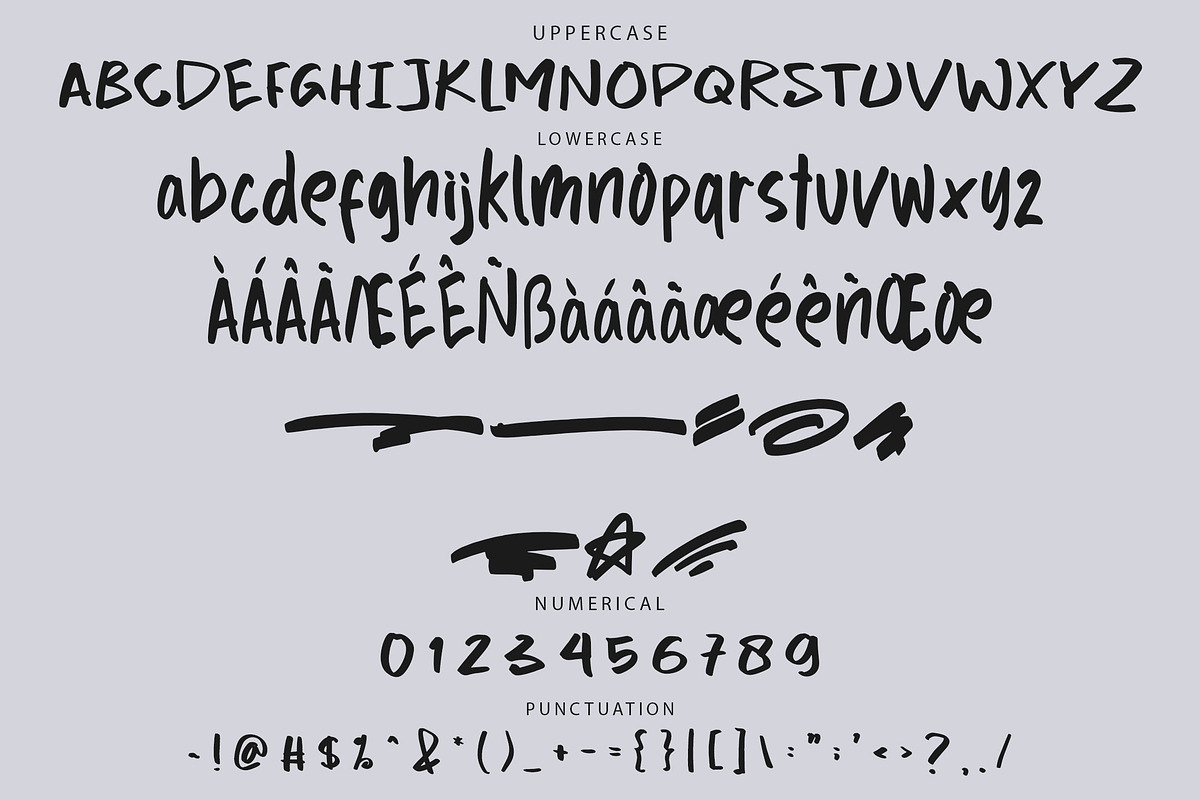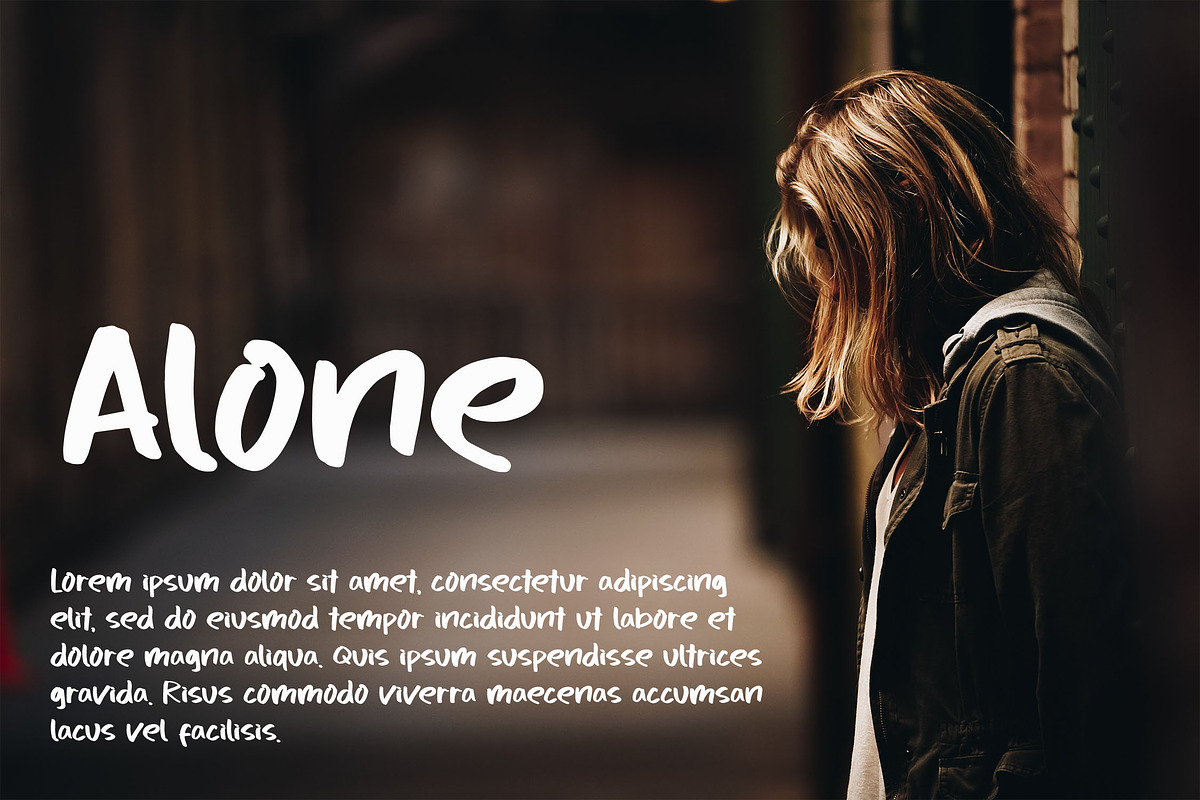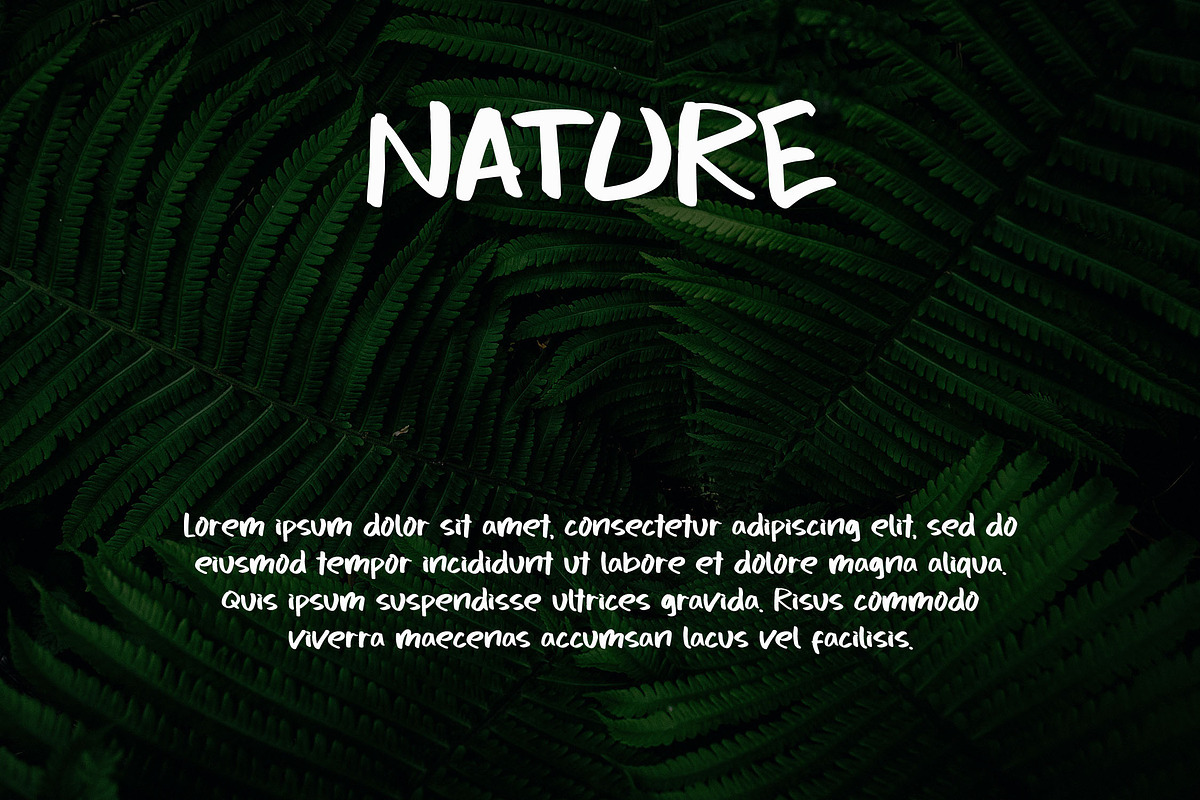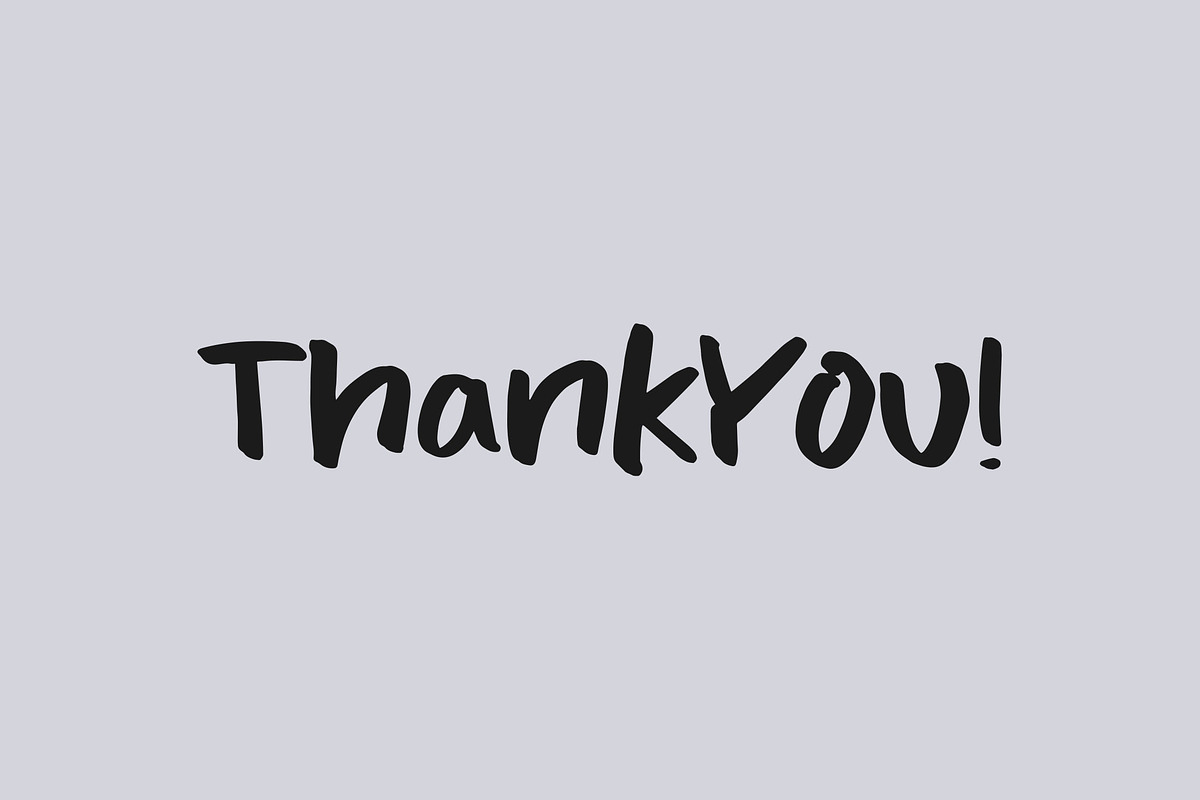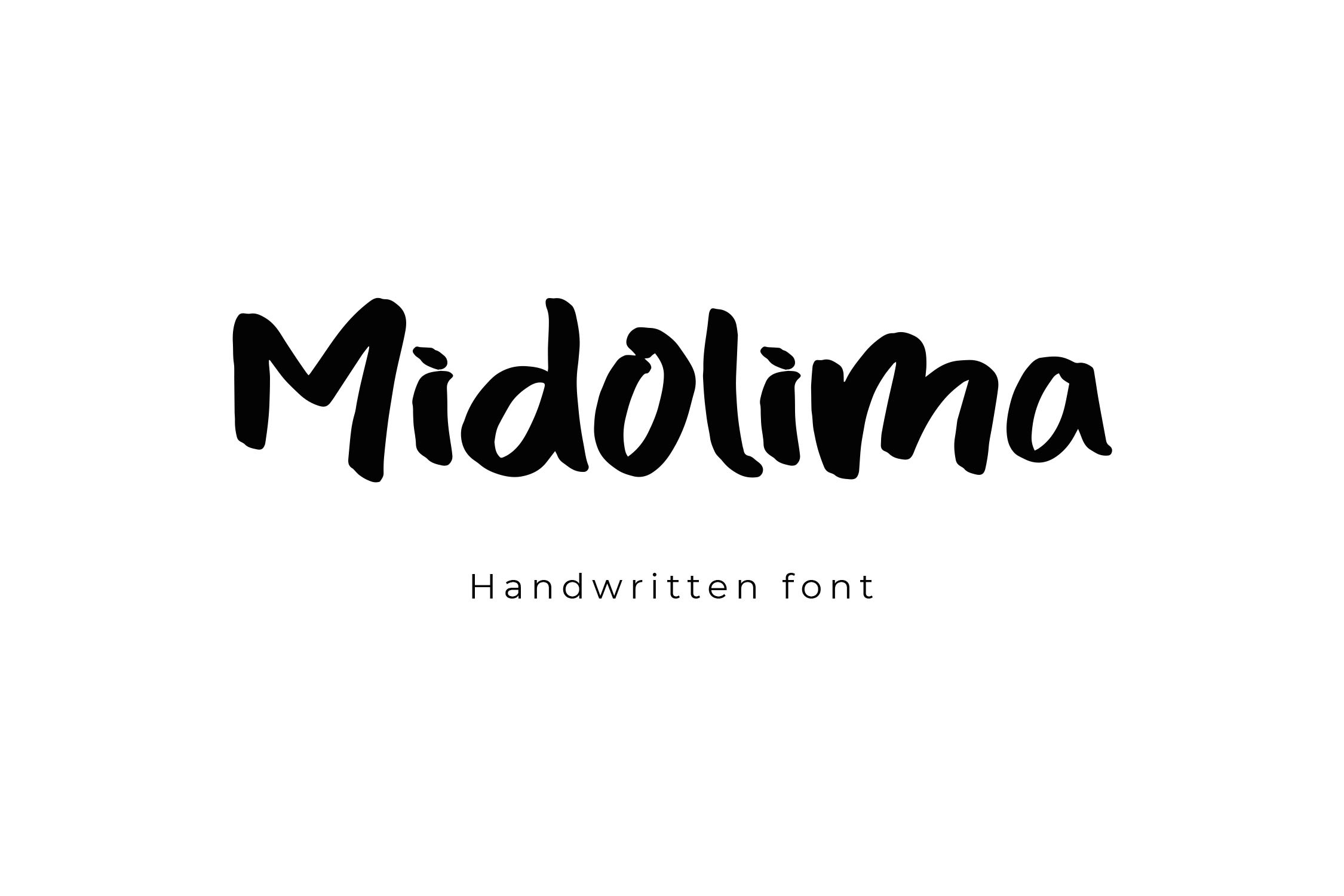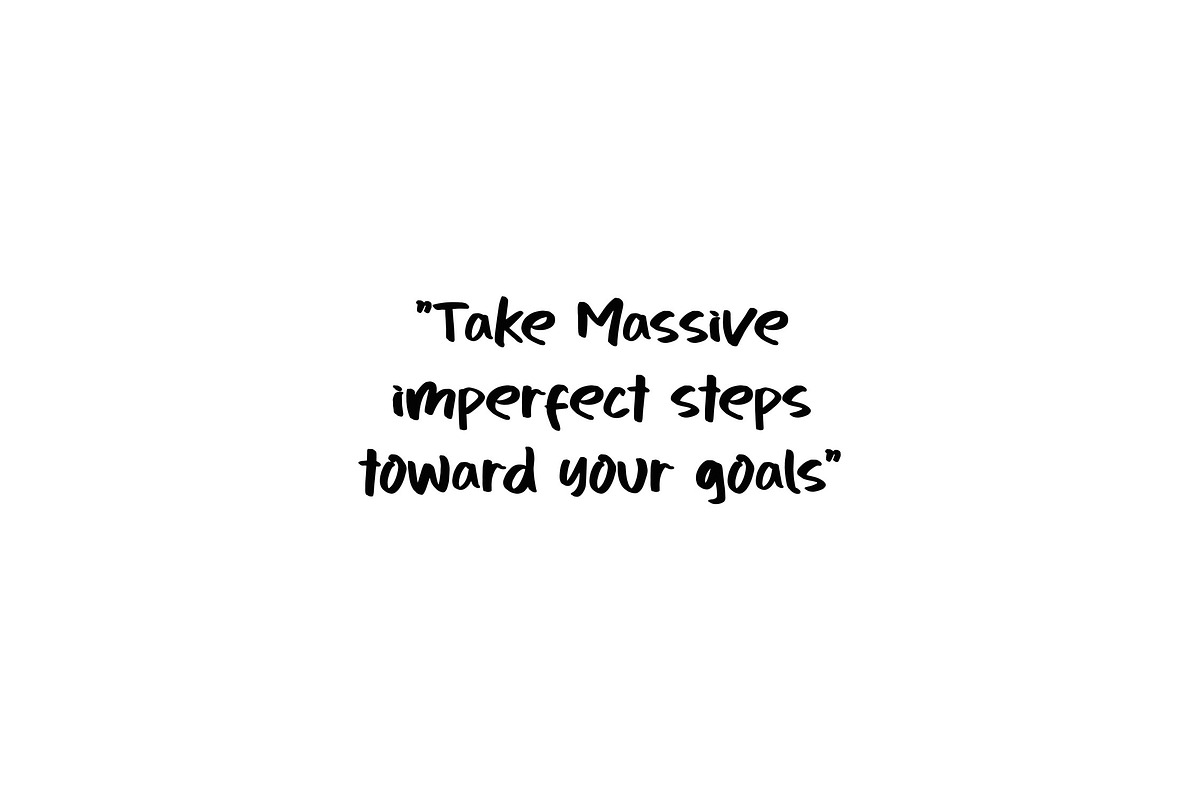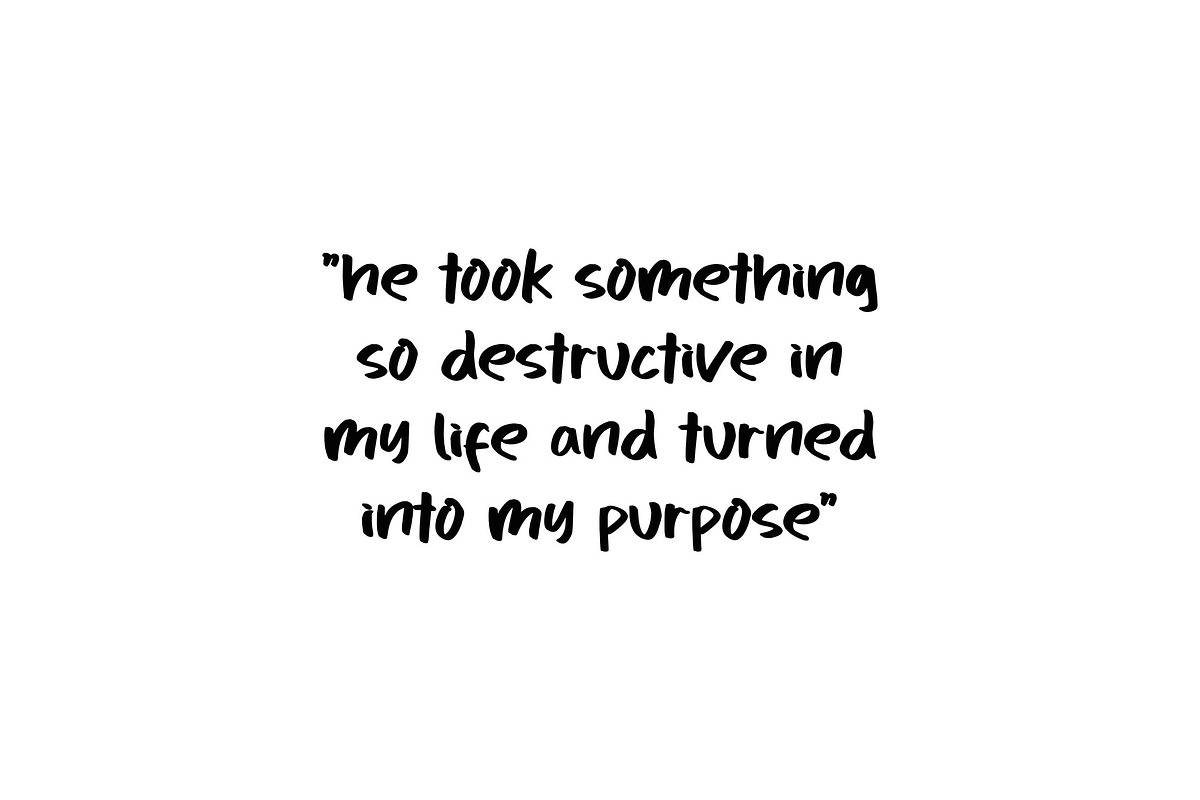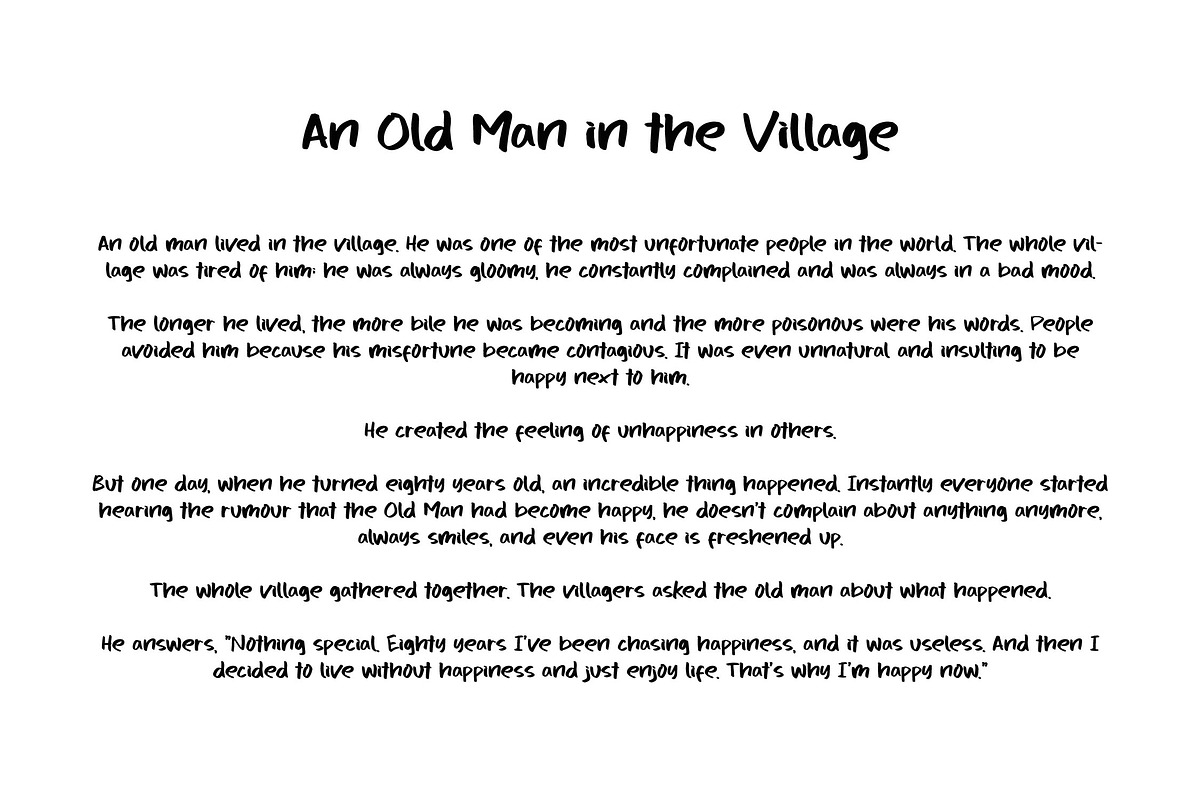
Midolima Handwriting Font
Midolima - Rough Handbrush Handwriting Font
Midolima is a bold and expressive handwriting font with a rough handbrush style. Its unique character shapes bring a handcrafted, artistic feel to your designs, making it ideal for branding, packaging, posters, and other creative projects. Midolima adds a raw, edgy touch that enhances the visual appeal of your work.
- Includes ligatures, stylistic alternates, and swashes
- Supports multiple languages for global versatility